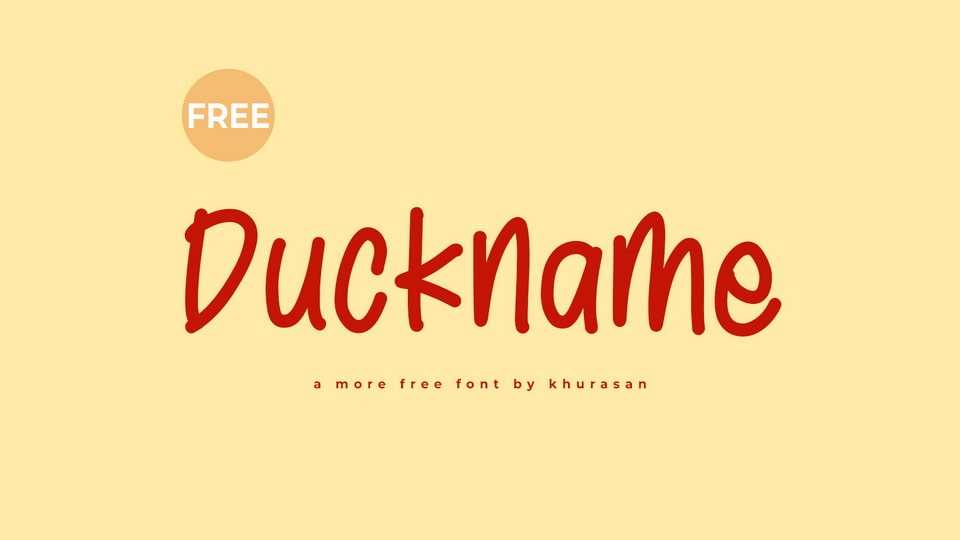
Download Duckname font, a playful and funny handwritten typeface designed to bring a lighthearted touch to your notes. The delightful irregularities and quirky details add character, making Duckname font an ideal choice for expressing your creativity in crafts, memos, and doodles.